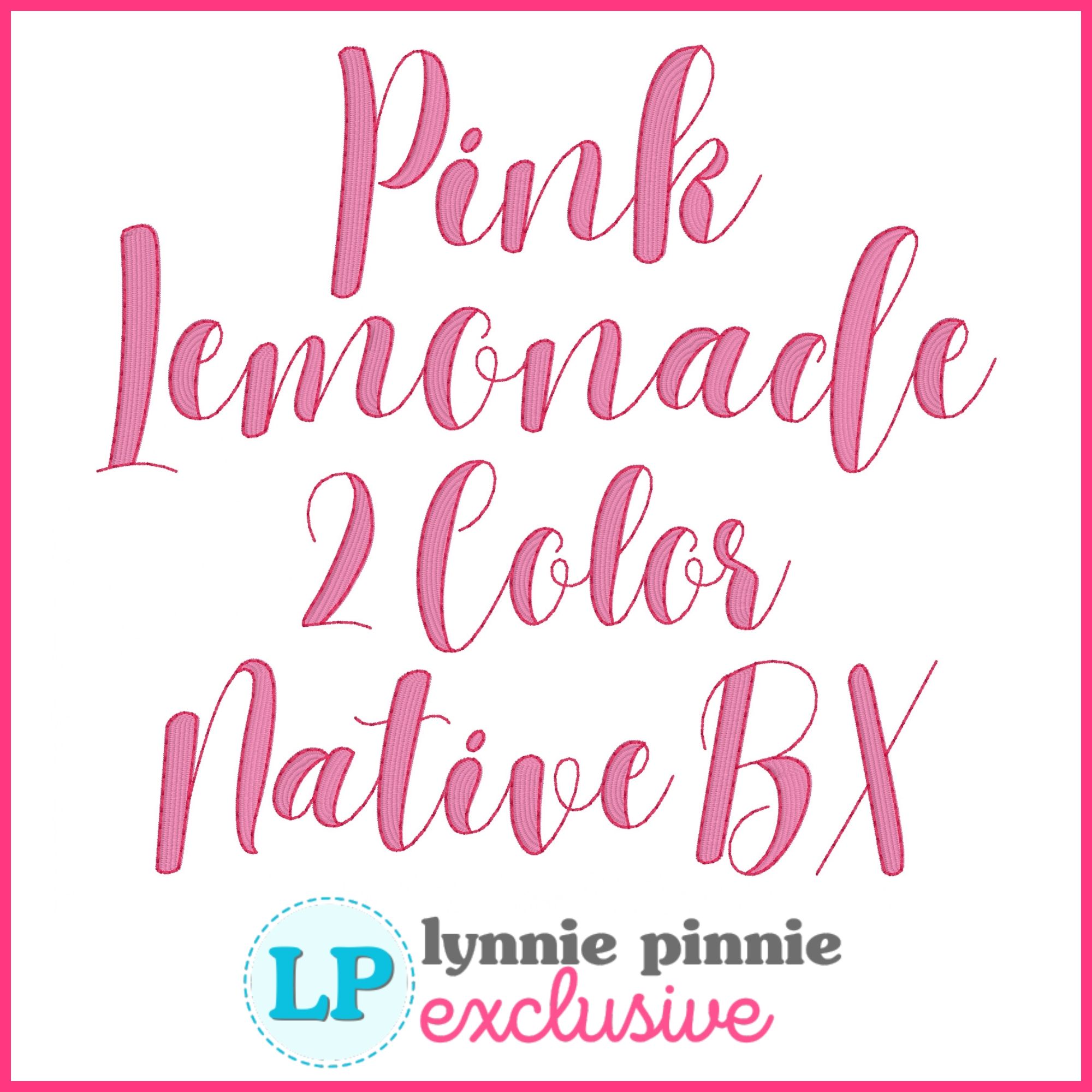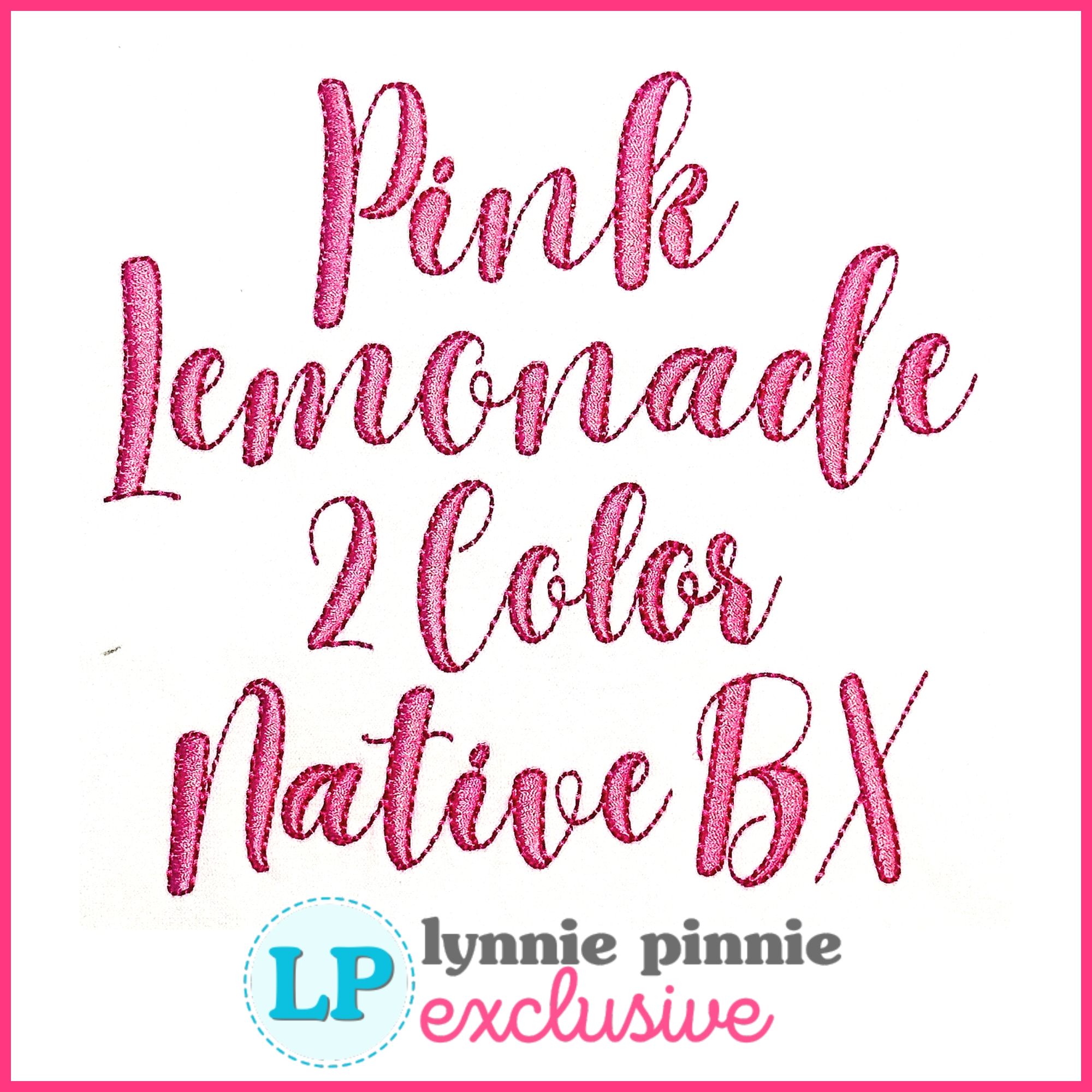
Pink Lemonade 2 Color Machine Embroidery Font – 7 Sizes + Scalable Native BX File
Pink Lemonade 2-Color is a bold and modern machine embroidery font with a full uppercase and lowercase alphabet, numbers, and punctuation. The satin stitch fill is paired with a smooth, contrasting outline for a stylish, layered look — perfect for standout names, monograms, and boutique-style projects.